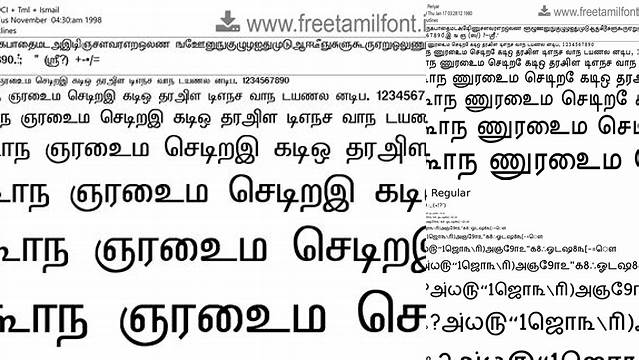
Tamil Fonts: Free Download Guide For Tamil Nadu Government Website
Hey guys! If you're diving into the world of Tamil language content creation, especially concerning Tamil Nadu government resources, you'll quickly realize the importance of having the right fonts. Using the correct Tamil fonts ensures that your content looks professional, is easily readable, and aligns with the visual standards expected by the government. This comprehensive guide will walk you through everything you need to know about downloading Tamil fonts for use with Tamil Nadu government websites and documents. We’ll explore where to find these fonts, how to install them, and some tips for using them effectively. Let’s get started and make sure your Tamil content shines!
Why Proper Tamil Fonts Matter
Before we jump into the download process, let's take a moment to understand why using the right fonts is crucial. When dealing with official Tamil Nadu government materials, consistency and clarity are key. Using standard Tamil fonts ensures that your documents are accessible and easy to read for everyone. Imagine submitting a report or proposal using a font that's difficult to decipher—it could lead to misunderstandings or even rejection. Proper Tamil font usage enhances readability, maintains a professional appearance, and ensures compliance with government standards. This is especially important for official communications, publications, and online content. Government websites often have specific font guidelines to maintain a uniform look and feel across all their digital platforms. By adhering to these standards, you contribute to a cohesive and trustworthy representation of information. Moreover, using the correct fonts can also impact the technical aspects of your content. Some fonts are optimized for screen reading, while others are better suited for print. Choosing the right font for the medium can significantly improve the user experience. For instance, a clear, legible font on a website ensures that visitors can easily access and understand the information, while a high-quality font in a printed document ensures clarity and professionalism. In summary, using the right Tamil fonts is not just about aesthetics; it's about effective communication, professionalism, and accessibility. So, let's dive into how you can get your hands on the best Tamil fonts for your needs.
Tips for Using Tamil Fonts Effectively
Okay, guys, you've got your Tamil fonts installed, which is fantastic! But simply having the fonts isn't enough – you need to know how to use them effectively to create visually appealing and readable content. Here are some tips to help you make the most of your Tamil fonts. First and foremost, readability is key. When choosing a Tamil font, prioritize clarity and legibility, especially for body text. Avoid fonts that are too decorative or stylized, as they can be difficult to read in large blocks of text. Opt for fonts that have a clean and simple design, with well-defined letterforms. Think about the context in which the font will be used. A font that looks great in a headline might not be suitable for body text, and vice versa. For headlines and titles, you can afford to be a bit more adventurous with your font choices, but always ensure that the font is still readable at the intended size. For body text, stick to classic and reliable Tamil fonts that are designed for extended reading. Consider the font size carefully. The size of the font can significantly impact readability. A font that is too small will strain the eyes, while a font that is too large can look overwhelming. Experiment with different font sizes to find the sweet spot that is comfortable to read and visually appealing. Pay attention to line spacing and kerning. Line spacing (the space between lines of text) and kerning (the space between individual letters) can also affect readability. Adequate line spacing makes the text easier to scan, while proper kerning ensures that the letters are evenly spaced and the words look balanced. Most word processing and design applications allow you to adjust line spacing and kerning, so take advantage of these features to fine-tune the appearance of your text. Use font variations strategically. Many Tamil fonts come in different weights (e.g., regular, bold, italic) and styles. Use these variations to add emphasis and hierarchy to your text. For example, you might use a bold font for headings and subheadings, and an italic font for quotations or emphasized words. However, avoid overusing font variations, as too many styles can make your text look cluttered and confusing. Be consistent with your font choices. Consistency is essential for creating a professional and cohesive look. Choose a limited number of fonts (ideally two or three) and use them consistently throughout your document or website. This will help to create a unified visual identity and make your content more visually appealing. Test your fonts on different devices and browsers. A font that looks great on your computer might not render correctly on other devices or in different web browsers. Always test your fonts on a variety of platforms to ensure that they are displaying as intended. Use Tamil fonts that support the characters you need. The Tamil language has a rich set of characters, so it’s important to use fonts that fully support these characters. A font that’s missing certain characters will display them incorrectly, which can be confusing or even change the meaning of your text. And there you have it – some practical tips for using Tamil fonts effectively. By keeping these guidelines in mind, you can create content that is not only visually appealing but also easy to read and understand.